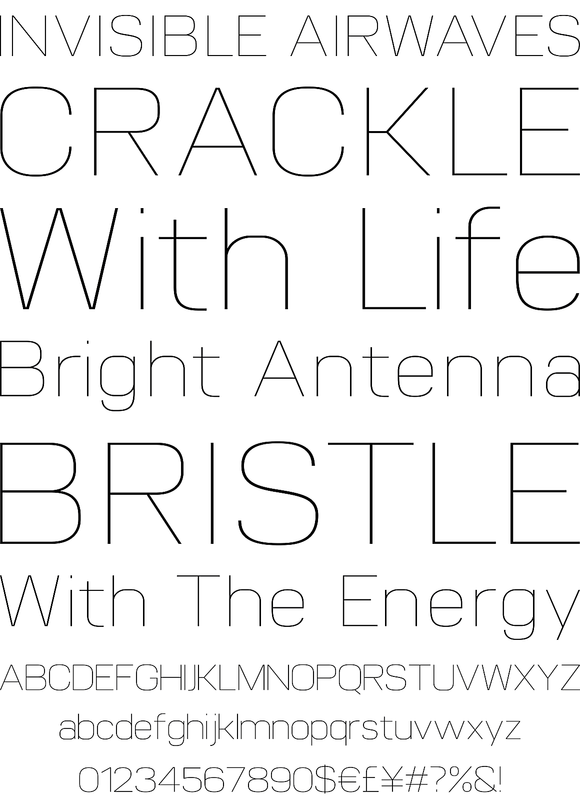
A geometric sans-serif typeface. The simple technical appearance has been achieved through careful optical adjustment, resulting in a modern and stylish font with great legibility. Details include 9 weights, a standard character set, manually edited kerning and Euro symbol.